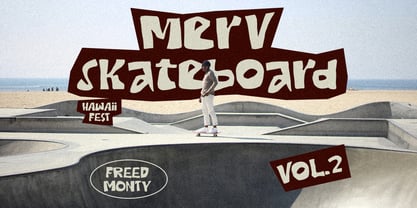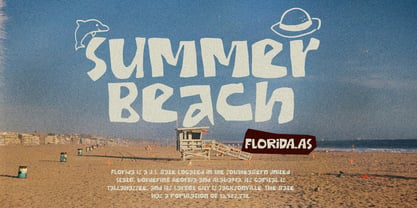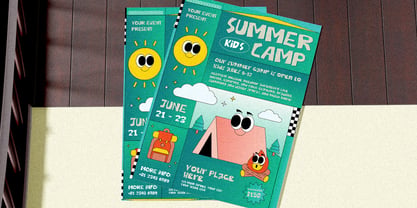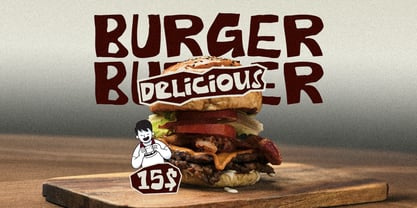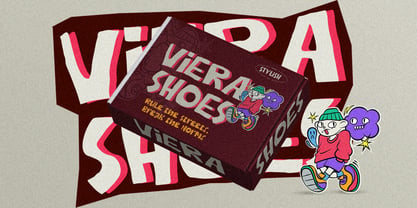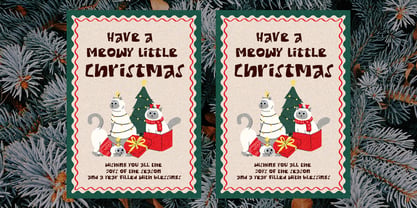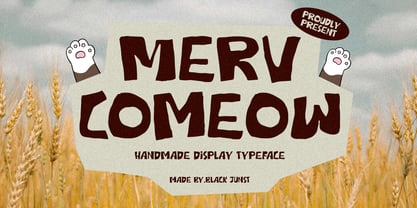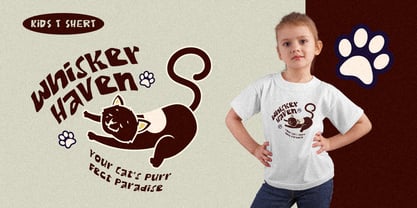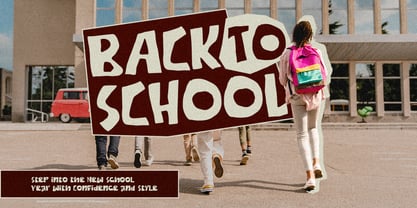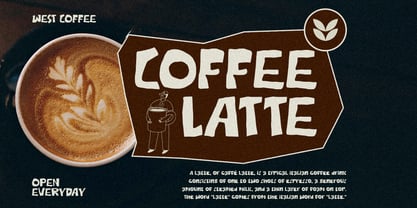
Merv Comeow
La famille de polices Merv Comeow a été conçue par Maulana Semar et publiée par Black Junst. Merv Comeow contient 2 styles et options de package familial. En savoir plus sur cette famille
Merv Comeow is a bold handmade display typeface crafted with playful, organic letterforms and an authentic hand-drawn feel. Its chunky shapes, irregular curves, and expressive construction create a warm and distinctive personality.
Designed for eye-catching typography, Merv Comeow is ideal for branding, logos, packaging, posters, apparel, labels, stickers, social media graphics, food and beverage projects, children's products, and editorial headlines.
The imperfect handmade character gives designs a friendly, approachable, and creative atmosphere while maintaining strong visual impact at display sizes.
Merv Comeow is a great choice for designers looking for a playful, quirky, handcrafted display font that can bring personality and originality to modern creative projects.